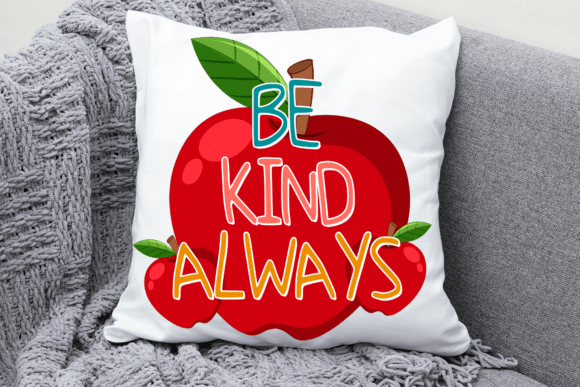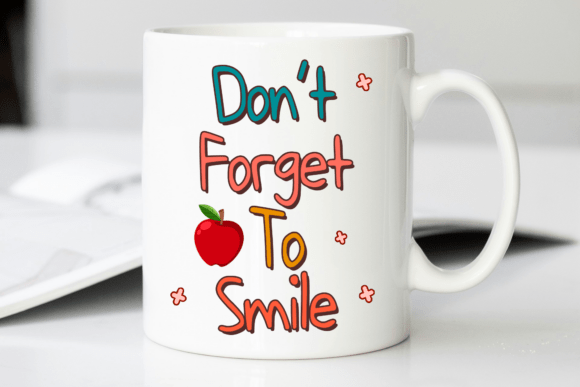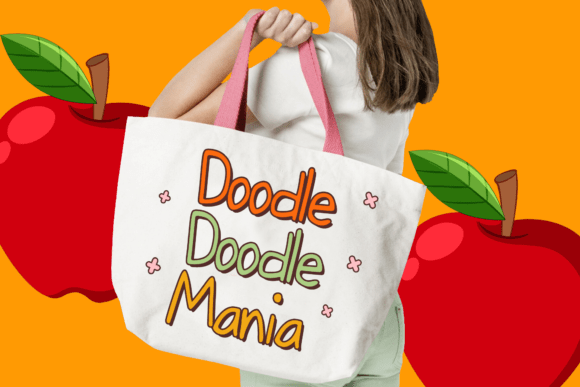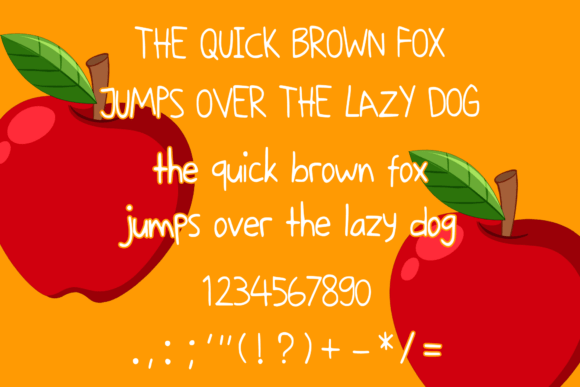
Doodly Apple Font: Add a Playful Touch to Your Designs
Are you looking for a font that can add a playful and cute touch to your designs? Look no further than the Doodly Apple Font! Inspired by cartoon and comic writing, this font is perfect for designers and crafters who want to create fun and engaging designs. In this article, we’ll take a closer look at the Doodly Apple Font and explore its features, uses, and benefits.
What is Doodly Apple Font?
Doodly Apple Font is a playful and cute doodle font that is inspired by cartoon and comic writing. It has a unique and quirky style that makes it perfect for designs that require a fun and lighthearted touch. The font is designed to be versatile and can be used for a wide range of design projects, from stickers and t-shirt designs to logo designs, magazine covers, and more.
Features of Doodly Apple Font
The Doodly Apple Font has several features that make it a great choice for designers and crafters. Some of its key features include:
- Playful and cute style: The font has a unique and quirky style that is perfect for designs that require a fun and lighthearted touch.
- Versatility: The font can be used for a wide range of design projects, from stickers and t-shirt designs to logo designs, magazine covers, and more.
- Easy to read: Despite its playful style, the font is easy to read and can be used for both headings and body text.
- High-quality design: The font is designed to be high-quality and can be used for professional designs.
Uses of Doodly Apple Font
The Doodly Apple Font can be used for a wide range of design projects, including:
- Stickers: The font is perfect for creating fun and colorful stickers that can be used for a variety of purposes.
- T-shirt designs: The font can be used to create fun and quirky t-shirt designs that are perfect for casual wear.
- Logo designs: The font can be used to create unique and memorable logo designs that can help businesses stand out.
- Magazine or book covers: The font can be used to create eye-catching magazine or book covers that can help grab the attention of readers.
- Comics and cartoon drawings: The font is perfect for creating comics and cartoon drawings that require a fun and playful touch.
Benefits of Using Doodly Apple Font
There are several benefits to using the Doodly Apple Font for your designs. Some of the key benefits include:
- Unique and quirky style: The font has a unique and quirky style that can help your designs stand out.
- Versatility: The font can be used for a wide range of design projects, making it a great addition to any designer’s toolkit.
- High-quality design: The font is designed to be high-quality and can be used for professional designs.
Tips for Using Doodly Apple Font
Here are a few tips for using the Doodly Apple Font in your designs:
- Use it for headings and titles: The font is perfect for headings and titles, and can help add a fun and playful touch to your designs.
- Experiment with different colors: The font looks great in a variety of colors, so don’t be afraid to experiment and find the perfect color for your design.
- Use it with other fonts: The font can be used with other fonts to create a unique and interesting design.
In conclusion, the Doodly Apple Font is a great choice for designers and crafters who want to add a playful and cute touch to their designs. With its unique and quirky style, versatility, and high-quality design, this font is perfect for a wide range of design projects. Whether you’re creating stickers, t-shirt designs, logo designs, or magazine covers, the Doodly Apple Font is sure to elevate your designs to the highest level.